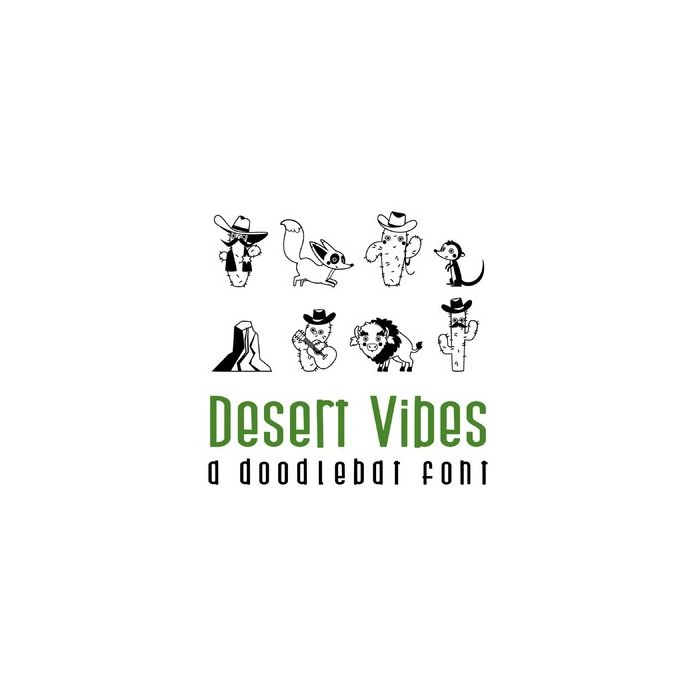
This adorable doodlebat font features 26 fun-loving desert cacti and animals. Perfect for cards, crafts, gifts, decor, planner stickers, scrap book pages and more!